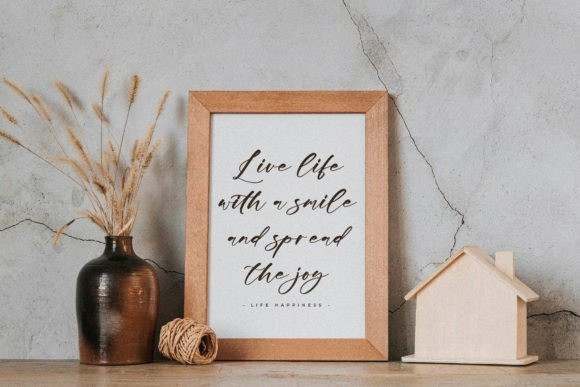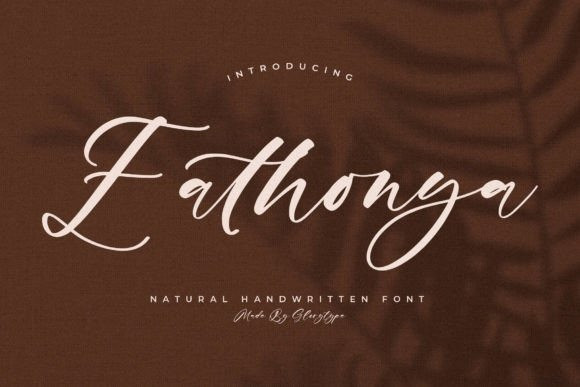
Eathonya Font
Eathonya Font – Natural Handwritten Font , from Glorytype Studio, suitable for any projects such as: logos, branding projects, homeware designs, product packaging, mugs, quotes, posters, shopping bags, t-shirts, book covers, name card, invitation cards, greeting cards, label, photography, watermark, special events, and all your other lovely projects that need a beautiful script taste.